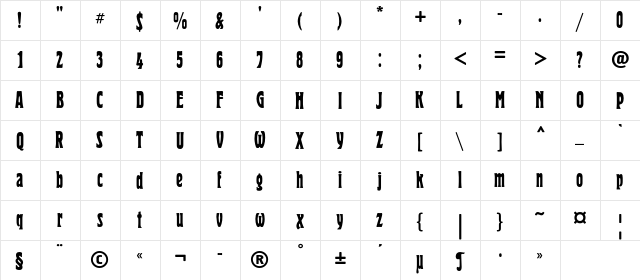
HeroldCondC Regular
Design Context for HeroldCondC Typeface
HeroldCondC takes a measured approach to typography — its balanced proportions and neutral character make it a reliable workhorse for both digital and print work. The condensed width makes it efficient for tight spaces without sacrificing legibility.